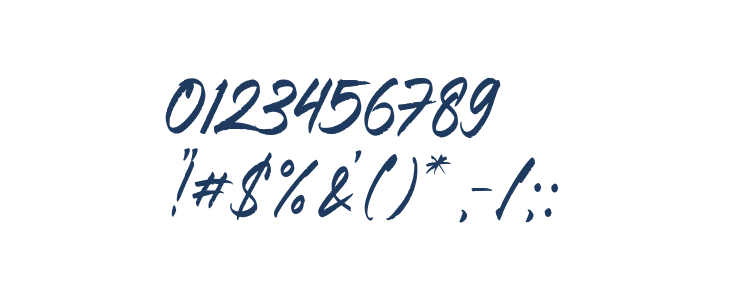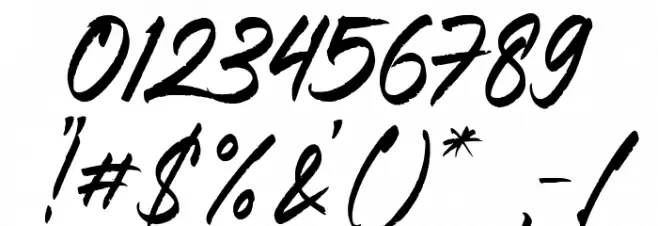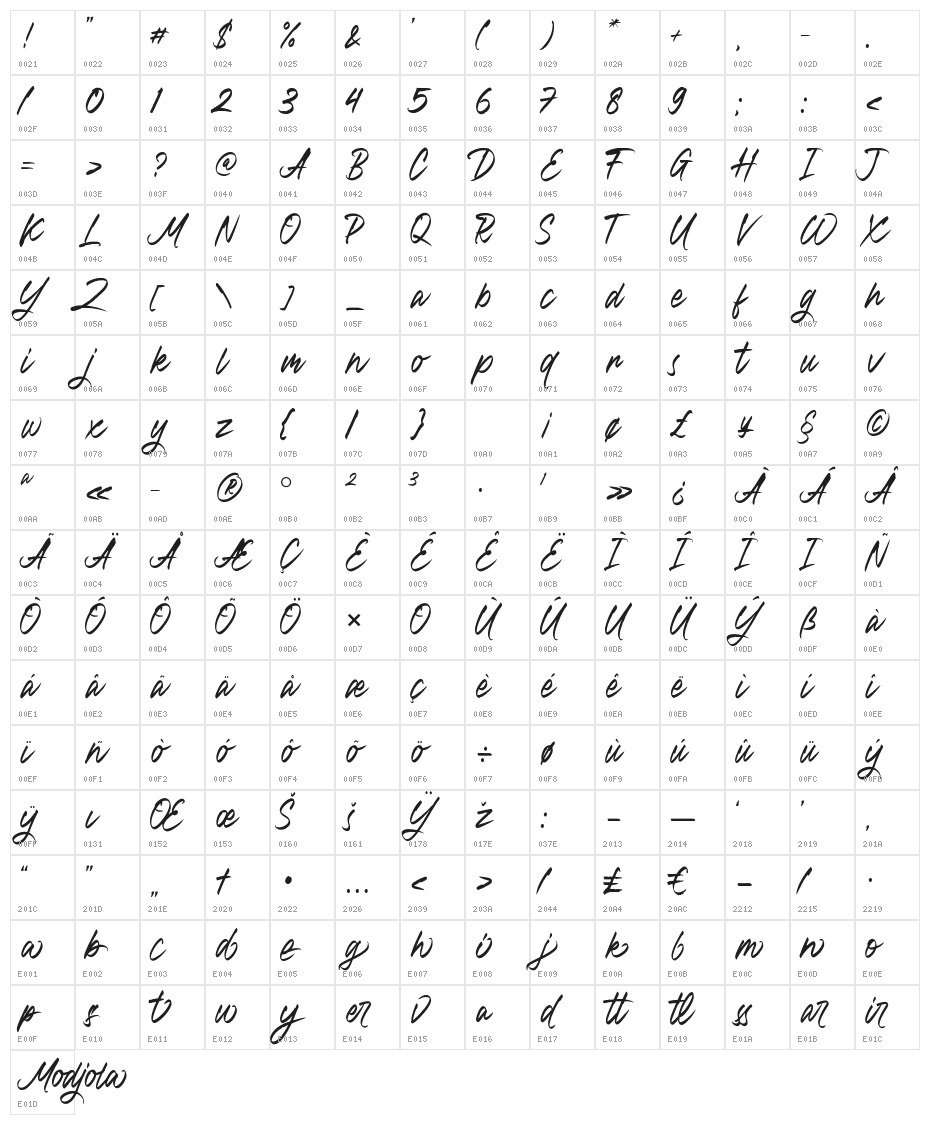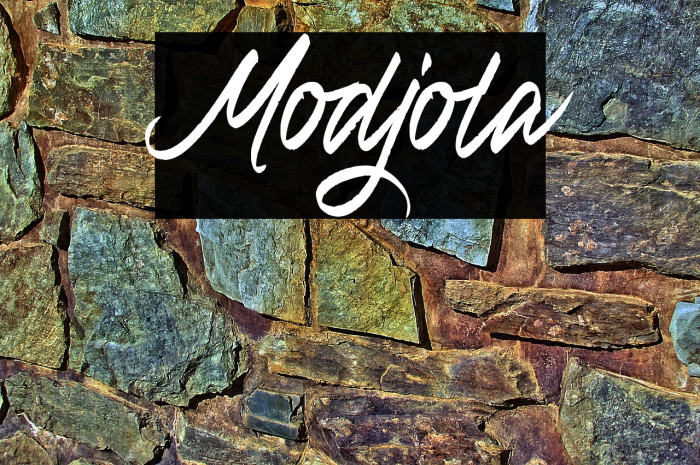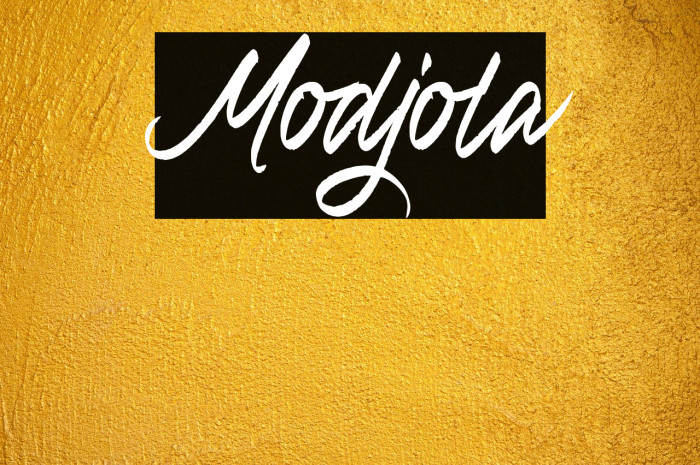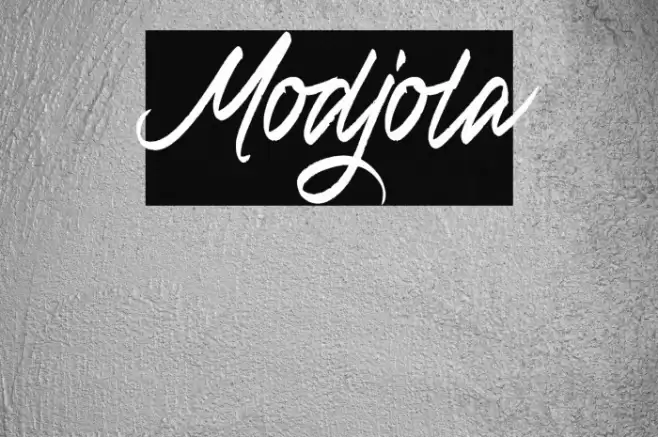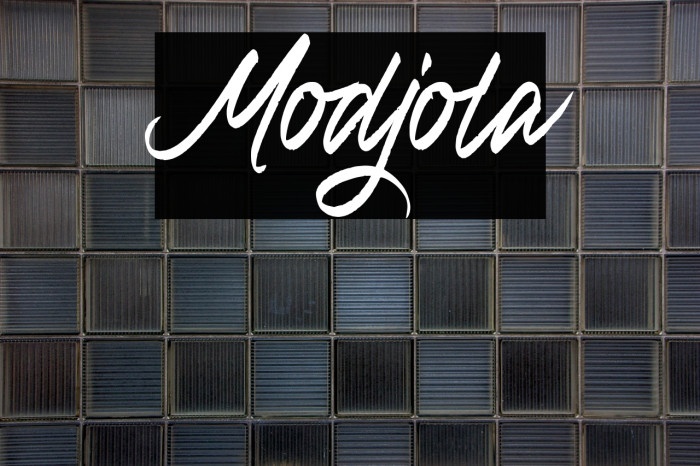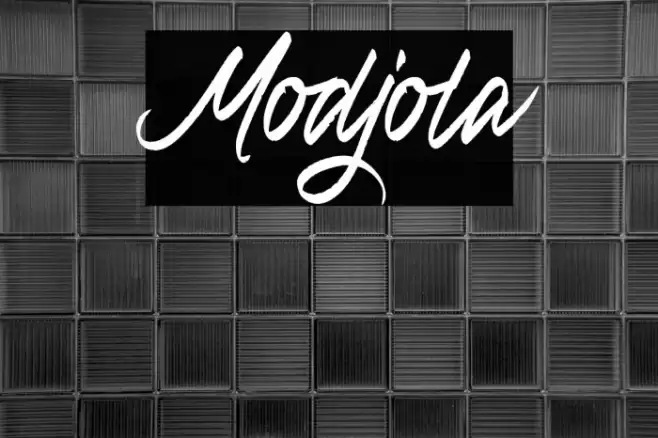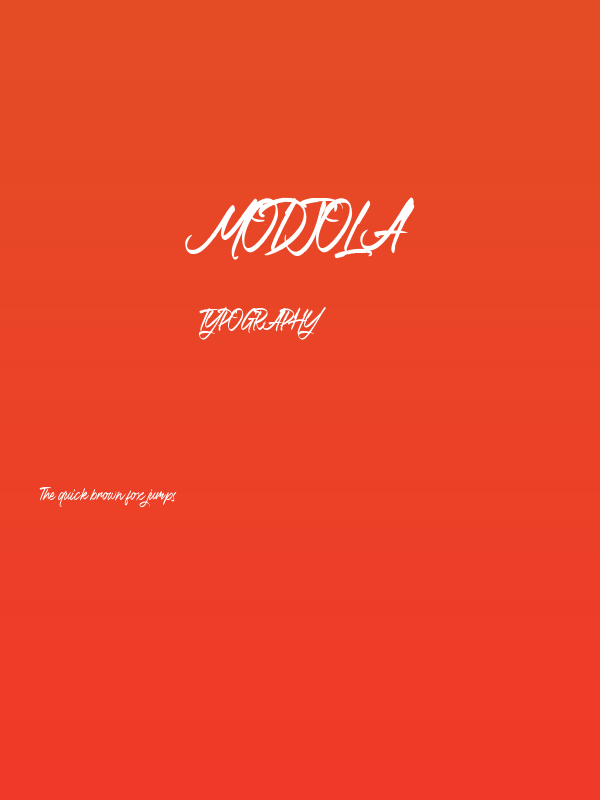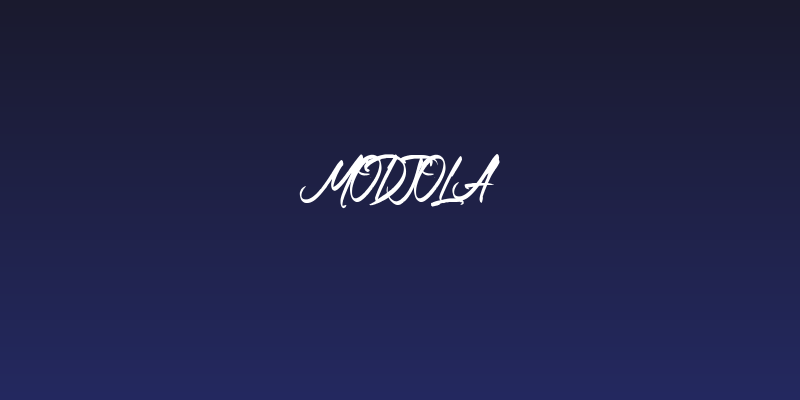
Modjola Font
Modjola Description
This font features a dynamic and expressive script style, characterized by its fluid and cursive strokes. The letters are interconnected, creating a sense of movement and elegance. The uppercase characters are bold and prominent, while the lowercase letters maintain a consistent flow. Numbers and special characters are crafted with the same artistic flair, ensuring a cohesive look across all elements. The overall appearance is both sophisticated and casual, making it versatile for various design needs.